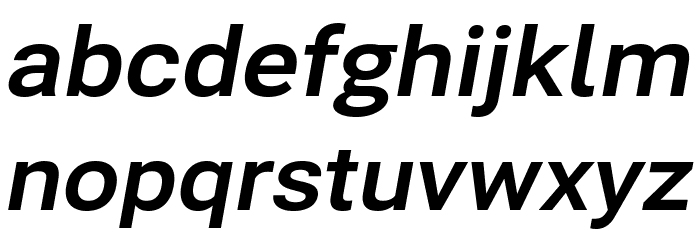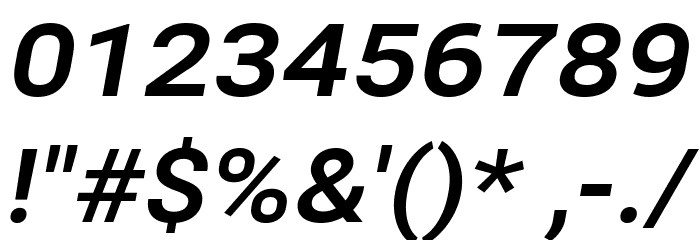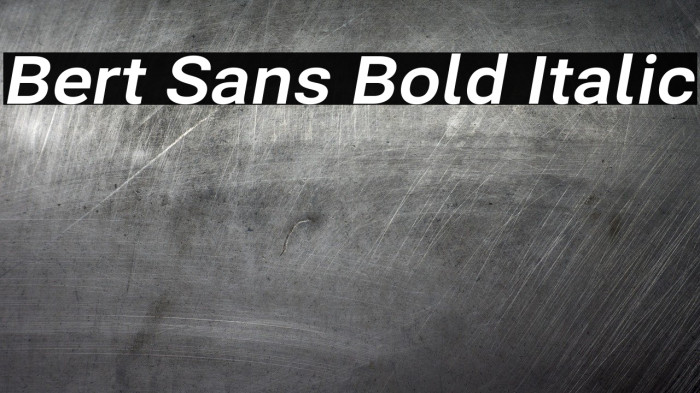
Bert Sans Bold Italic Font
This font exhibits a clean and modern sans-serif style with a bold weight and italic slant. The characters are well-defined with smooth curves and a consistent stroke width, providing a sleek and professional appearance. The uppercase and lowercase letters maintain a harmonious balance, while the numerals are clear and easy to read. Special characters are distinct and integrate seamlessly with the overall design. The italic angle adds a dynamic and forward-leaning aspect, enhancing its contemporary feel.
A bold, italic sans-serif font with a modern and sleek design.
- Proposed Projects: Ideal for branding, advertising, and digital media projects where a modern and bold statement is needed.
- Category: Sans-Serif
- Use Case: Headlines, Logos, Digital Media